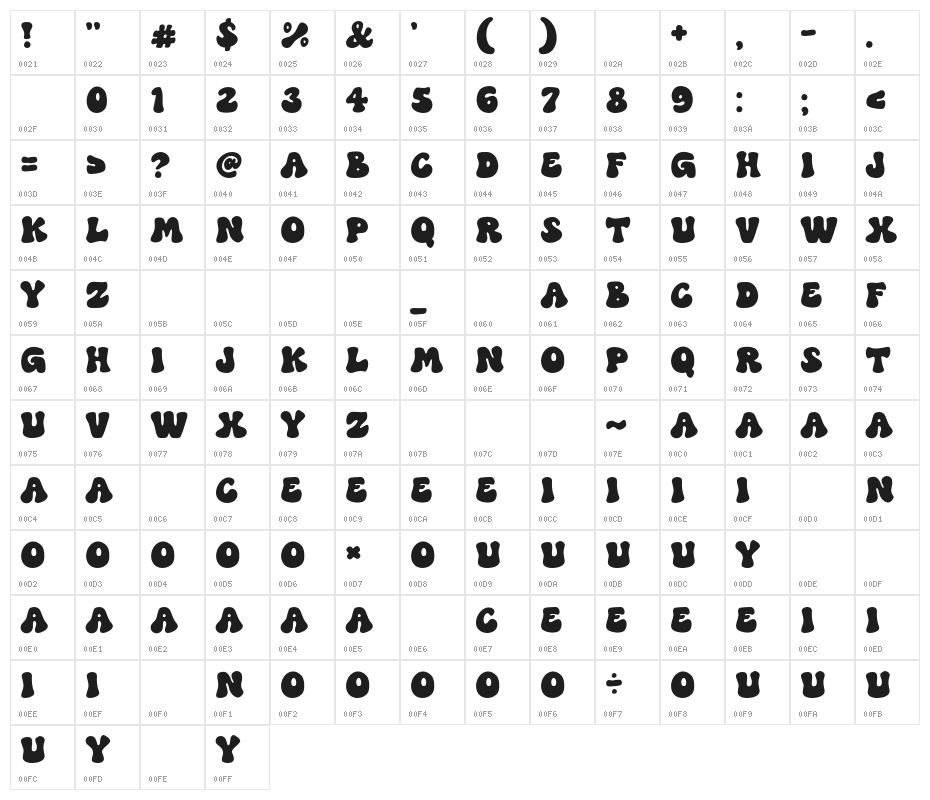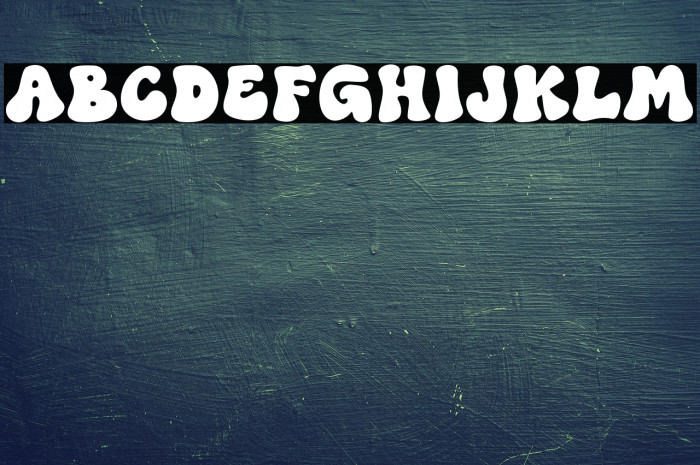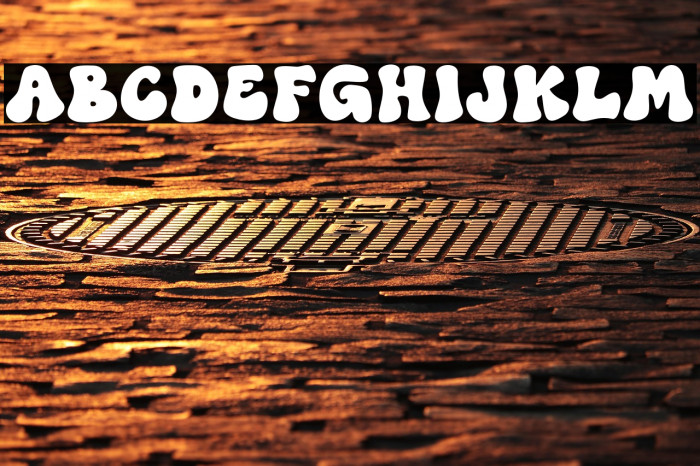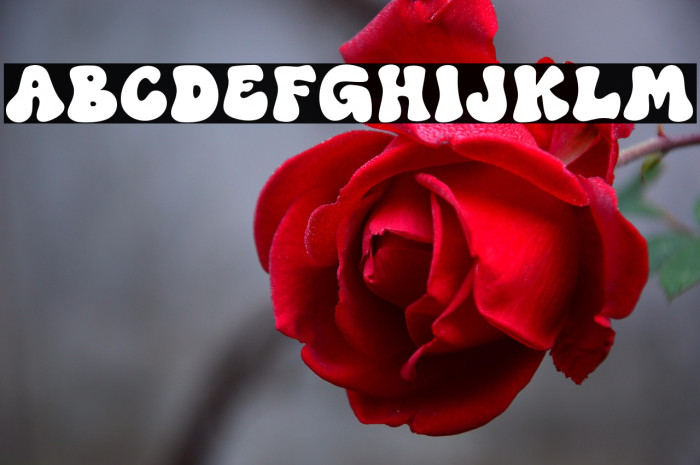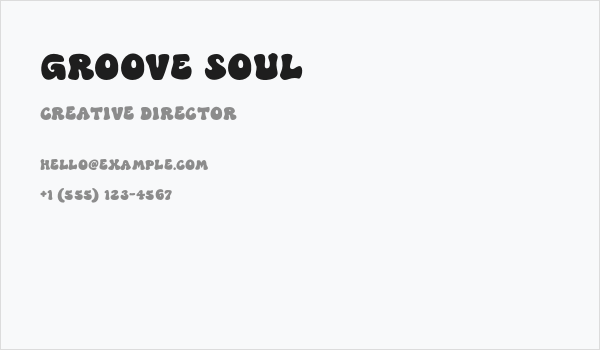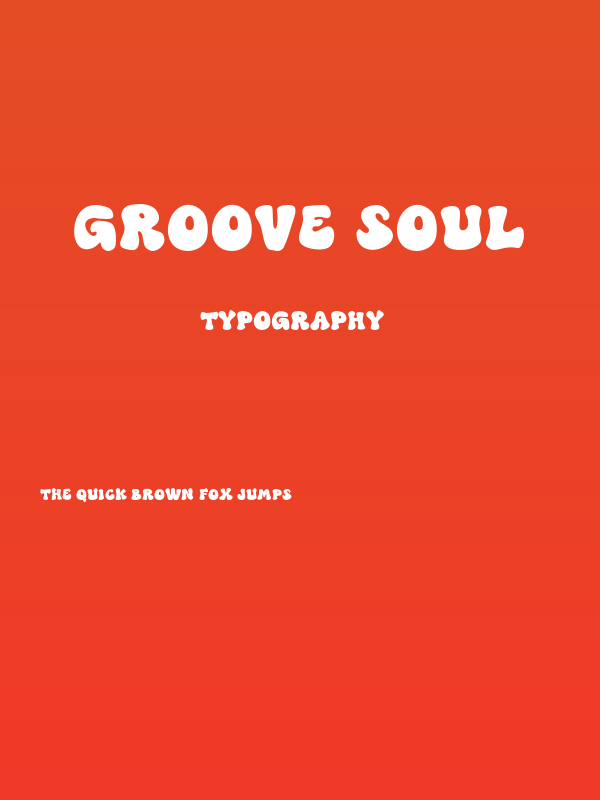
Groove Soul Font
Groove Soul Description
This font features a bold and playful design with rounded, bubbly characters that exude a sense of fun and creativity. The letters are thick and have a consistent weight throughout, giving them a strong presence on the page. The rounded edges and smooth curves contribute to a friendly and approachable aesthetic, making it ideal for projects that aim to convey warmth and positivity. The font includes a full set of uppercase and lowercase letters, numbers, and a variety of special characters, ensuring versatility in its application.